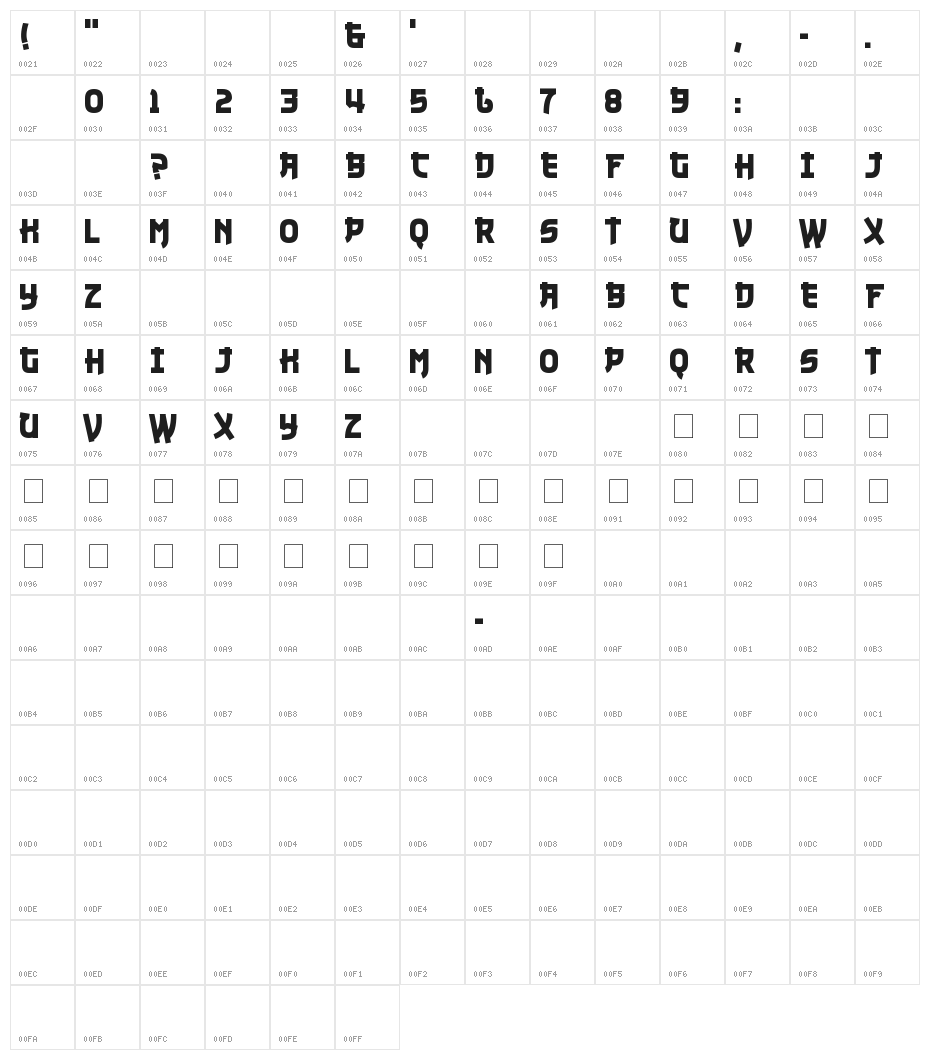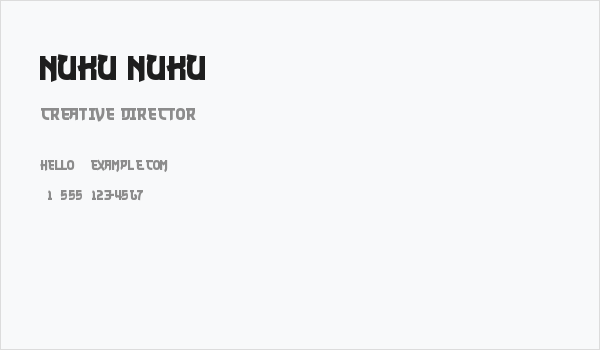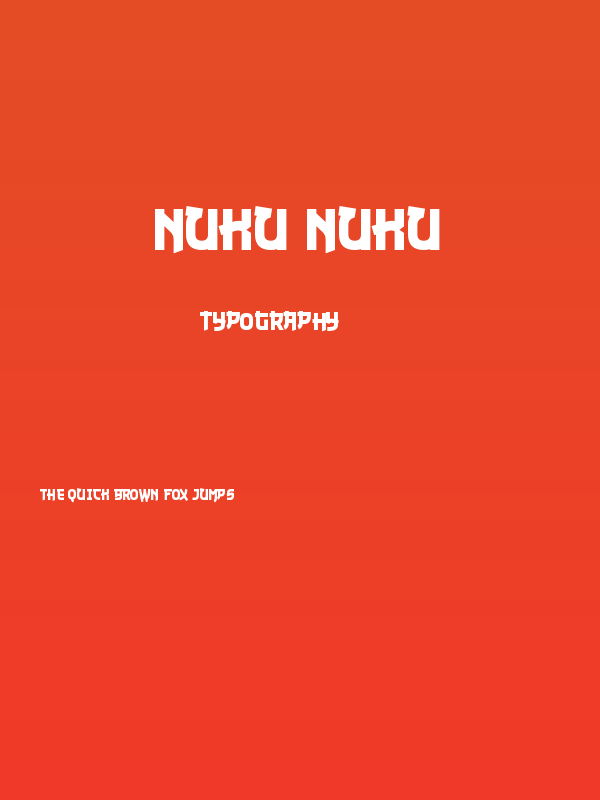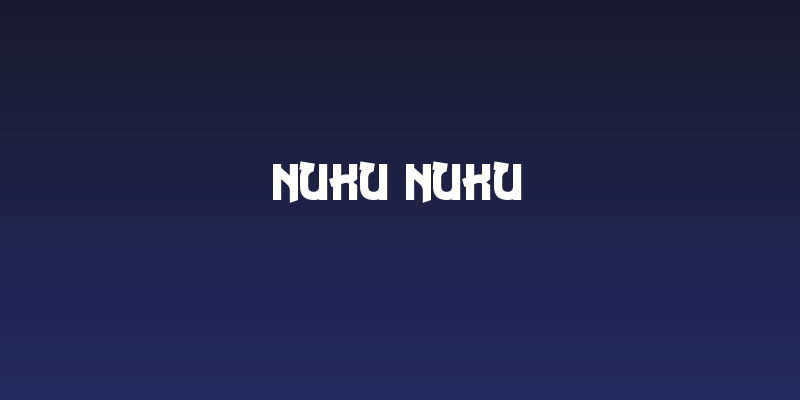
Nuku Nuku Font
Nuku Nuku Description
This font features a bold and striking design with a modern, geometric style. The characters are constructed with sharp angles and thick strokes, giving it a strong and impactful appearance. The uppercase letters are particularly distinctive, with unique cuts and edges that create a sense of movement and energy. The numerals and special characters maintain this bold aesthetic, ensuring consistency across all glyphs. This font is ideal for making a statement, whether in headlines or logos, due to its eye-catching and memorable design.
| Proposed Projects | Ideal for branding, poster design, and any project requiring a bold, modern aesthetic. |